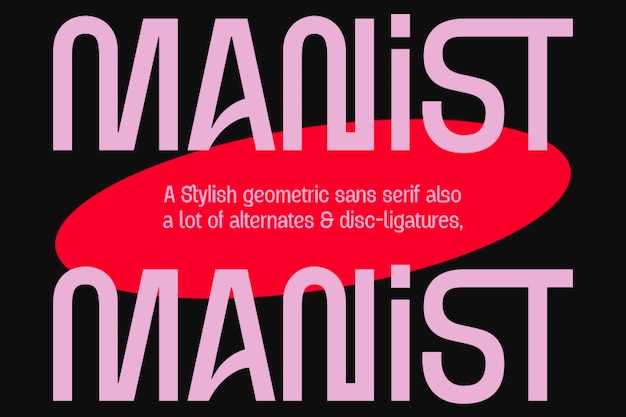
Manist Font
Redy Studio
Manist is a futuristic font with a sleek blend of rounded and straight-ended strokes, embodying a minimalist space-inspired aesthetic. Each letterform is carefully crafted to balance precision and softness, giving designs a modern, tech-forward appeal. Ideal for branding, sci-fi themes, or digital interfaces, Manist brings a clean, contemporary edge to any project.